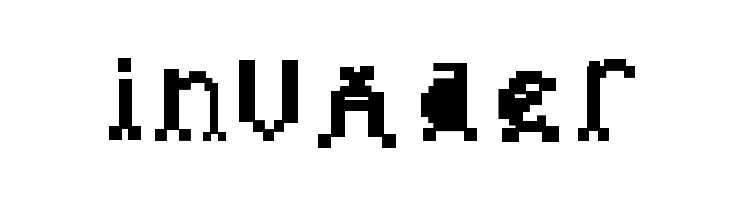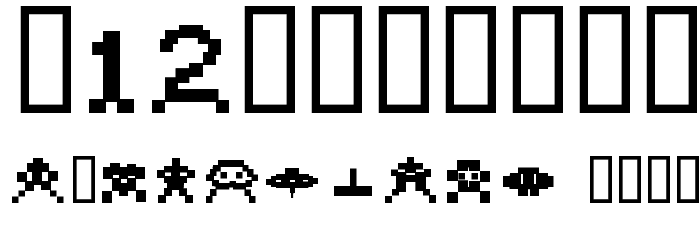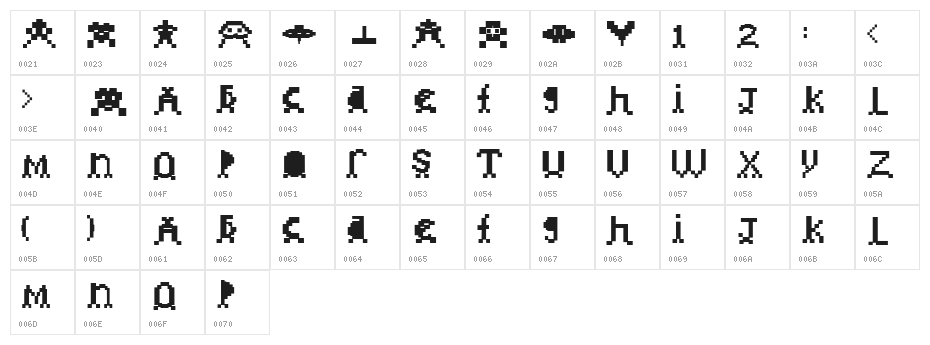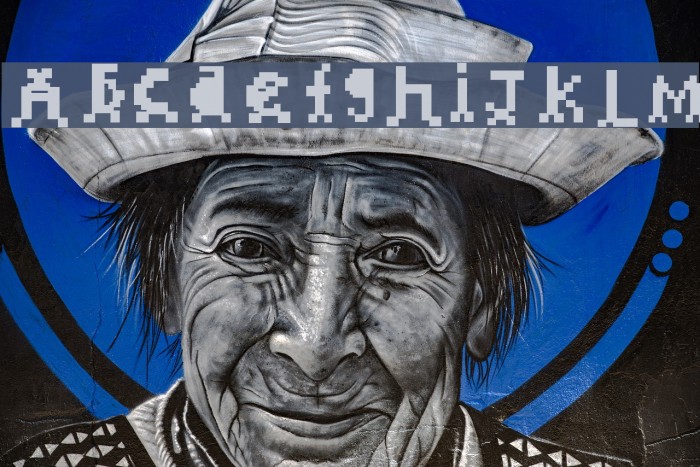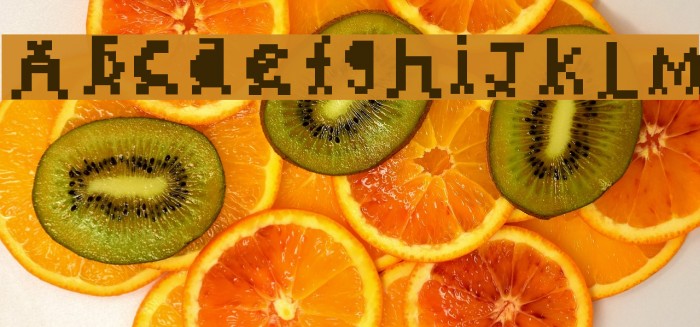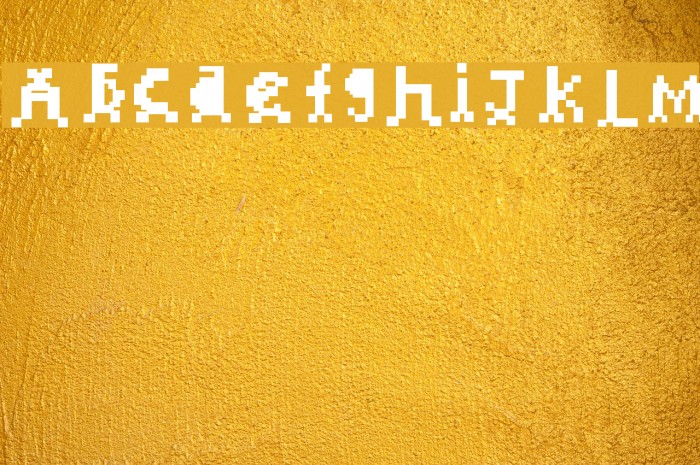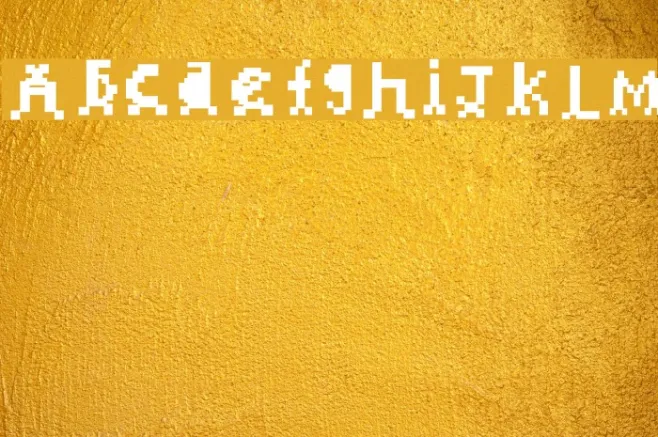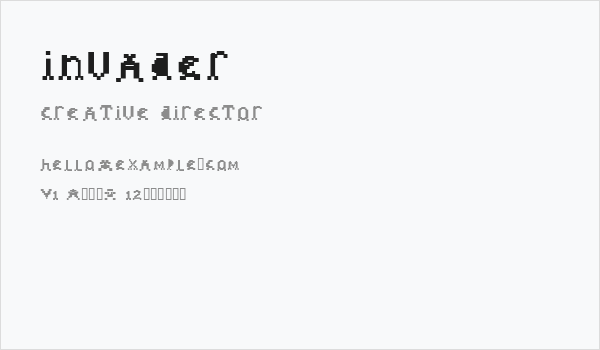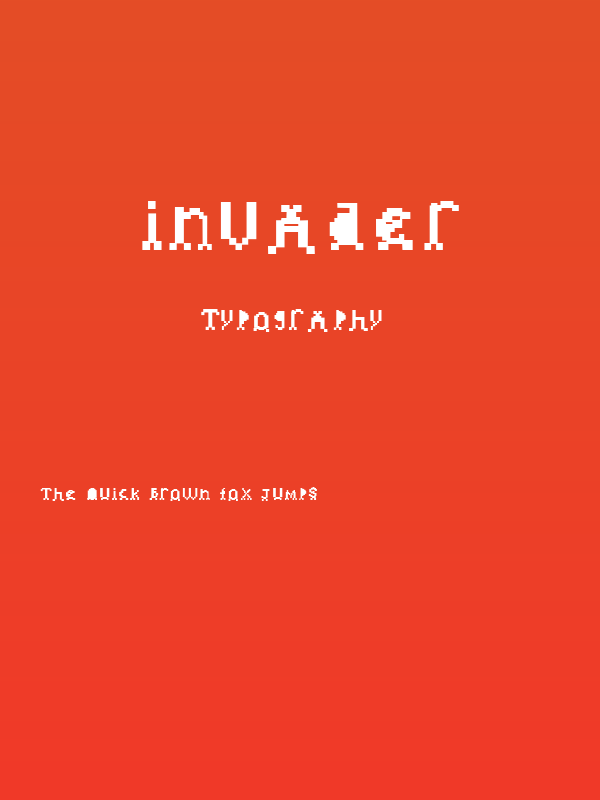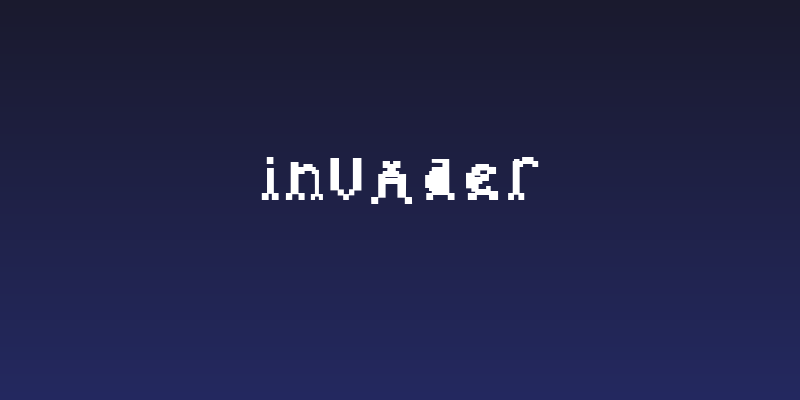
invader Font
invader Description
This font is a pixelated, retro-style typeface reminiscent of classic arcade games. Each character is constructed with a blocky, grid-like appearance, giving it a distinctly digital and nostalgic feel. The uppercase and lowercase letters maintain a consistent pixelated structure, with some characters featuring unique, playful designs that add to the font's charm. The numbers and special characters follow the same pixelated theme, ensuring uniformity across the typeface. This font captures the essence of early video game graphics, making it ideal for projects that aim to evoke a sense of nostalgia or pay homage to the gaming culture of the past.